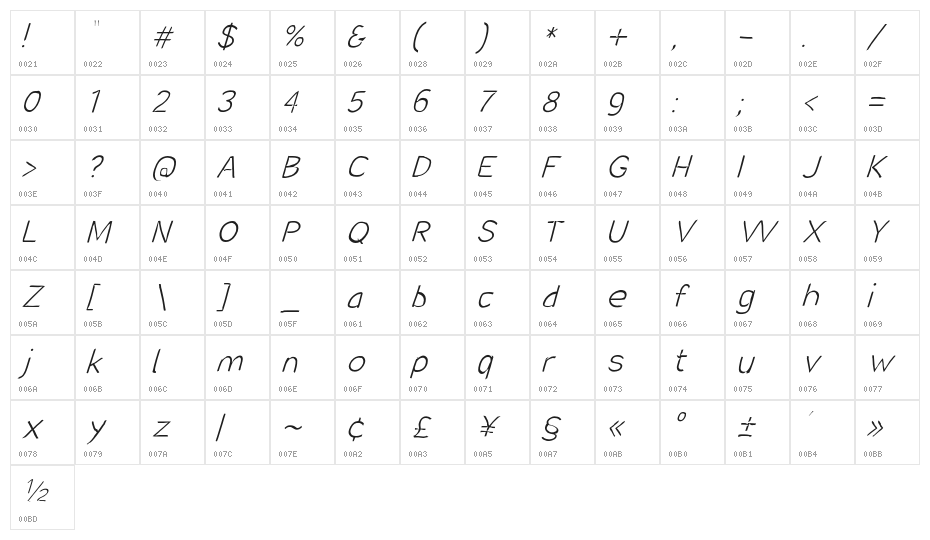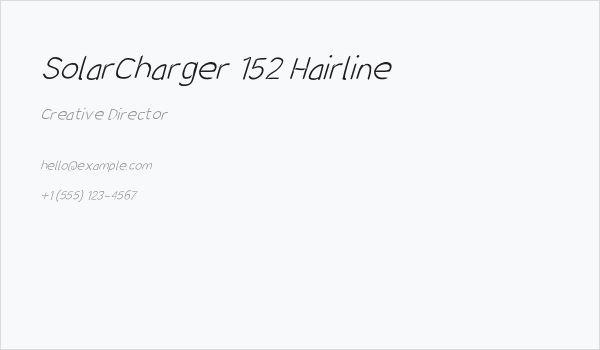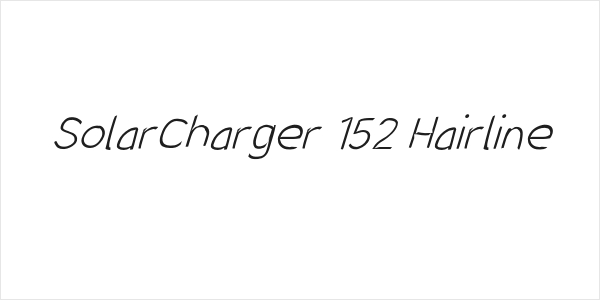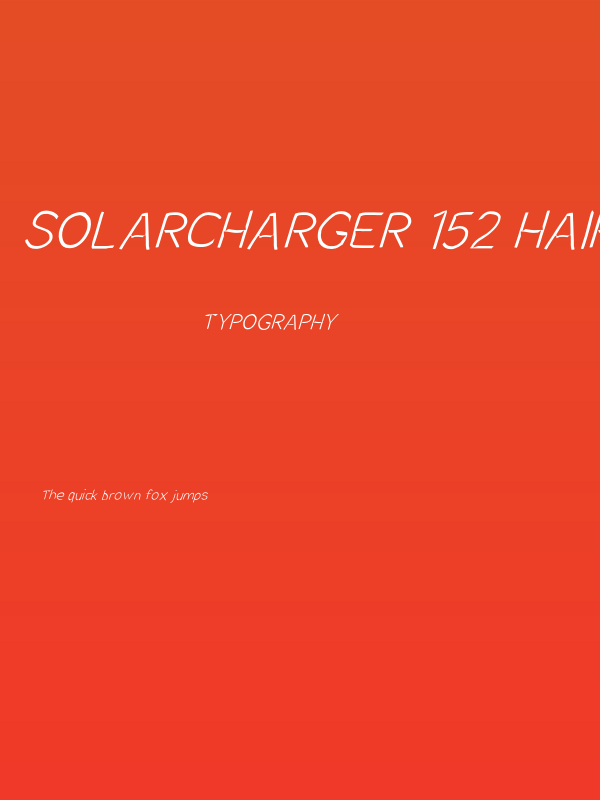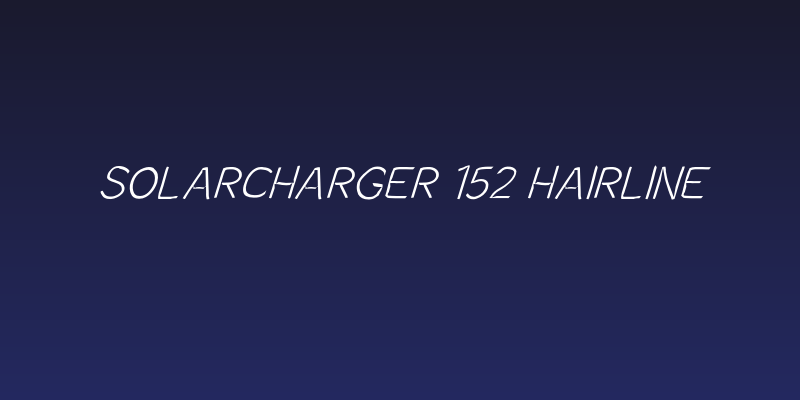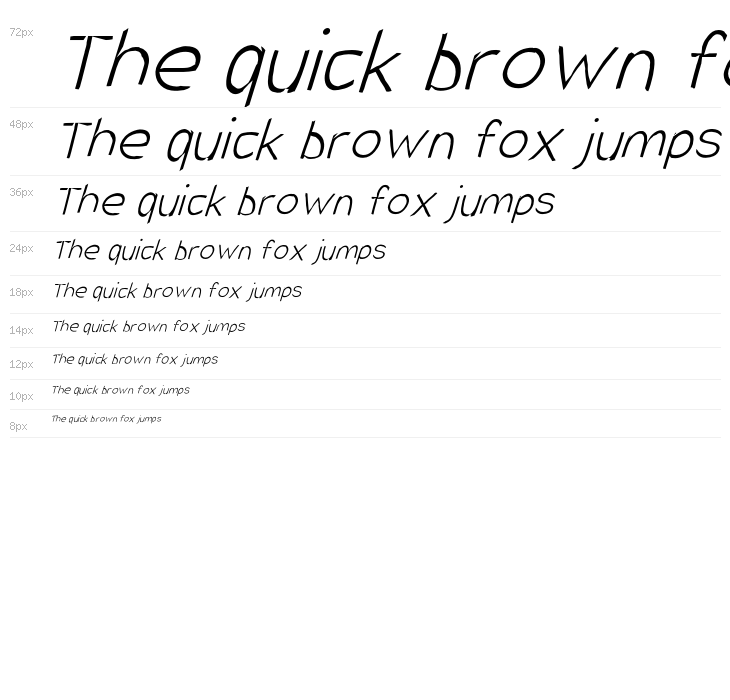
SolarCharger 152 Hairline Font
SolarCharger 152 Hairline Description
This font features a sleek and modern design with a slightly italicized style, giving it a dynamic and fluid appearance. The characters are thin and elongated, contributing to a sense of elegance and sophistication. The uppercase and lowercase letters maintain a consistent style, with smooth curves and sharp angles that enhance readability. The numerals are clear and distinct, matching the overall aesthetic of the alphabet. Special characters are well-integrated, maintaining the font's cohesive look. This font's hairline weight makes it ideal for projects that require a light and airy feel.
| Proposed Projects | Ideal for fashion magazines, luxury branding, elegant invitations, and minimalist design projects. |